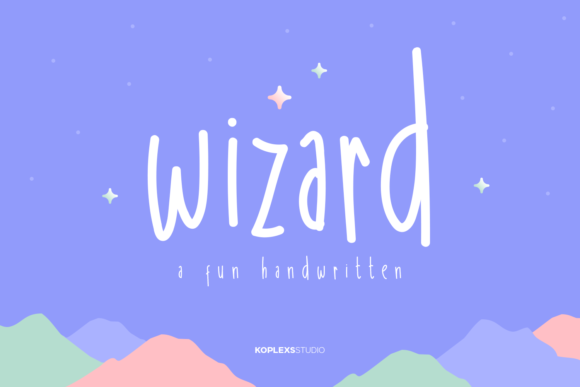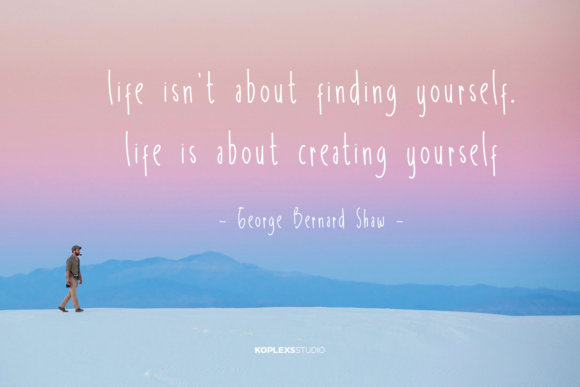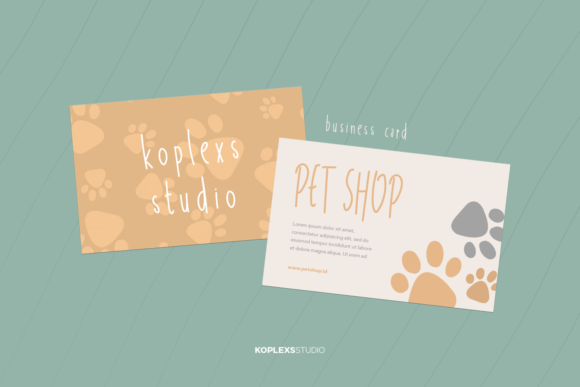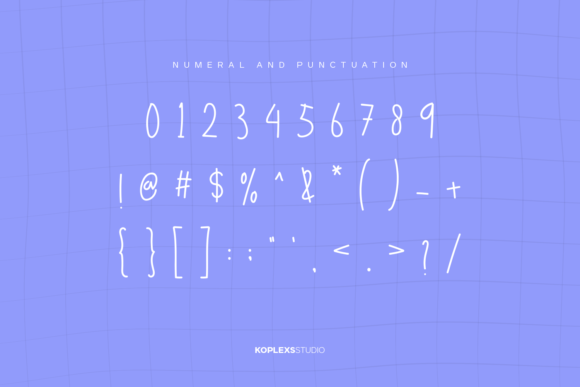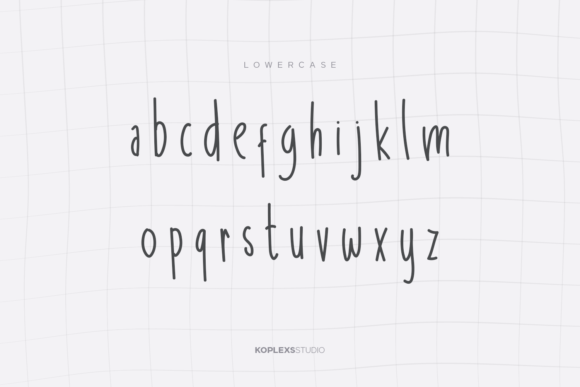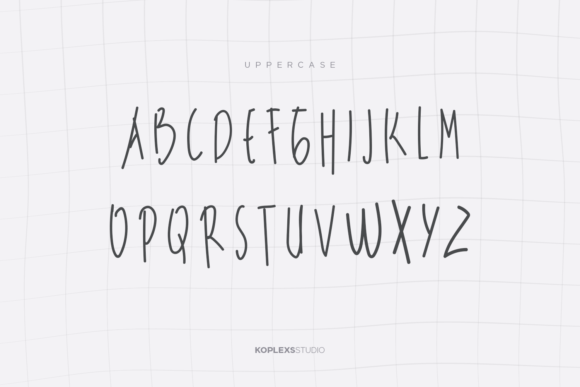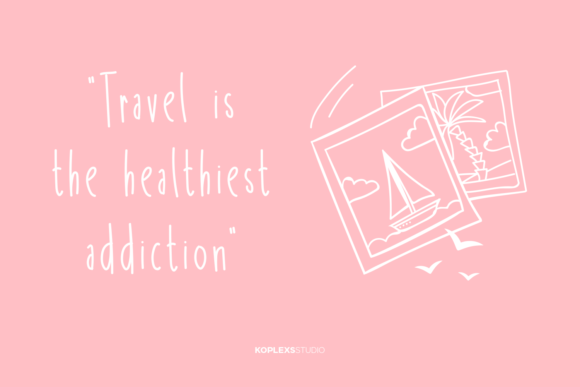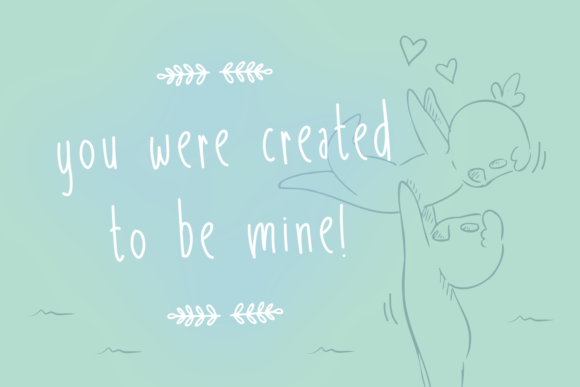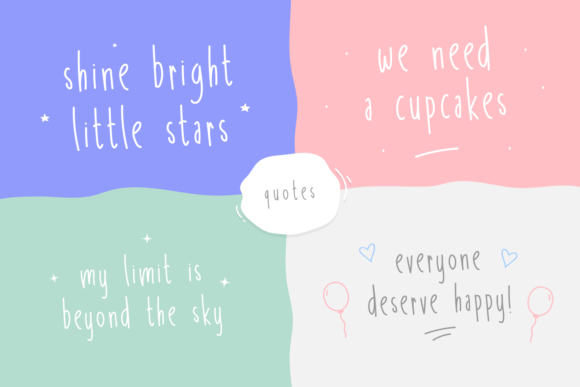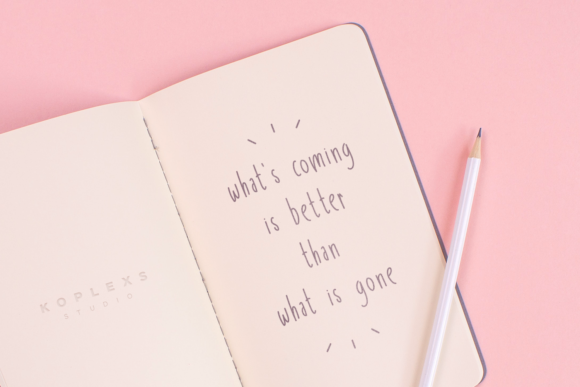
Wizard Font
About Wizard Font
Wizard is an adorable and uncomplicated handwritten font that holds the power to enhance a wide range of design projects. This font’s charm lies in its simplicity and versatility, making it a valuable addition to your fonts’ collection.
The strength of Wizard lies in its ability to effortlessly elevate your designs, regardless of the subject matter. Its unpretentious and approachable style makes it adaptable to various contexts, allowing it to seamlessly blend into different projects. Whether you’re working on branding, quotes, invitations, social media posts, or any other creative endeavor, Wizard brings a touch of whimsy and character.
With Wizard in your font library, you have a versatile tool that can breathe new life into your design concepts. The font’s straightforward and legible appearance ensures that your message is conveyed clearly while adding a dash of playfulness and charm. It’s the perfect choice for projects where you want to create a sense of warmth and approachability.
No matter the topic or theme, Wizard has the potential to be your go-to font for adding a touch of uniqueness to your creations. Its handwritten look and feel bring a personalized and human touch to your designs, helping them stand out in a sea of standard fonts. By incorporating Wizard into your projects, you’ll tap into its capacity to make your designs more engaging and memorable.
In essence, Wizard is a font that brings a sense of delight and simplicity to your work. Its versatility and ability to seamlessly integrate into a variety of design contexts make it a valuable asset in your creative toolkit. Whether you’re designing for print or digital media, Wizard has the potential to elevate your creations and leave a lasting impact on your audience.